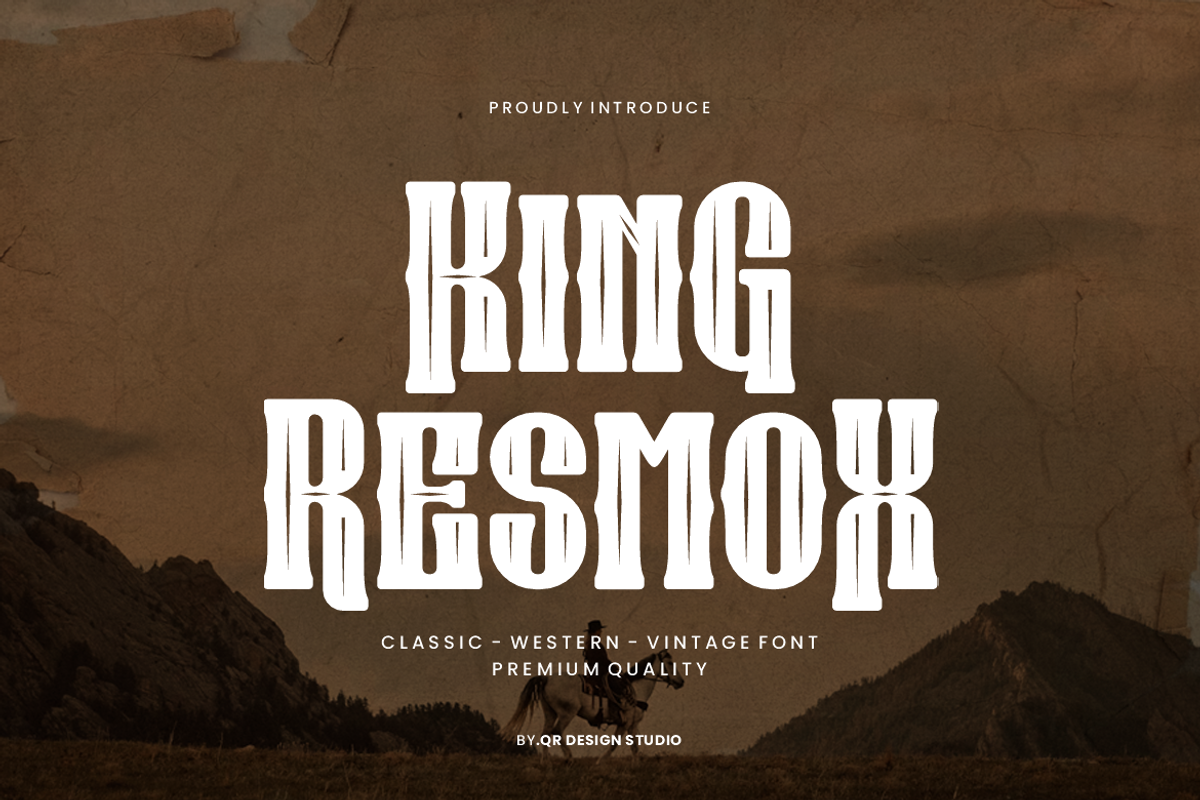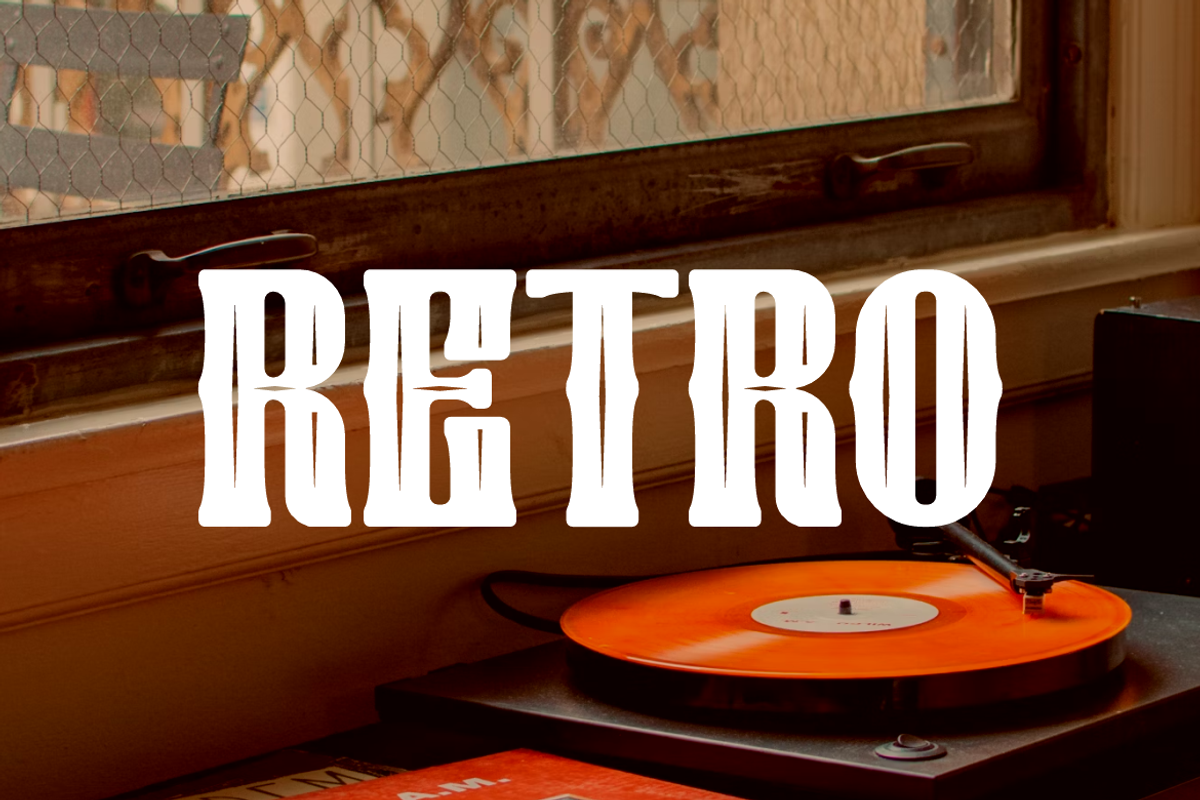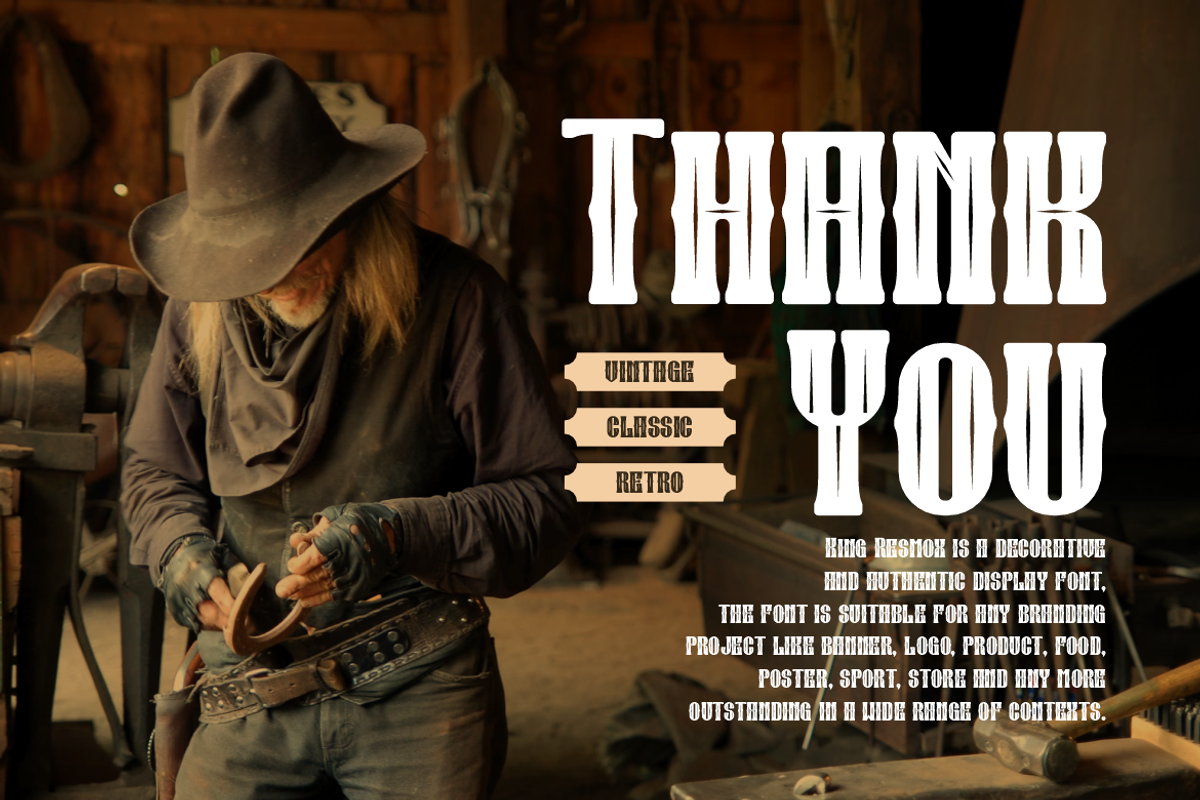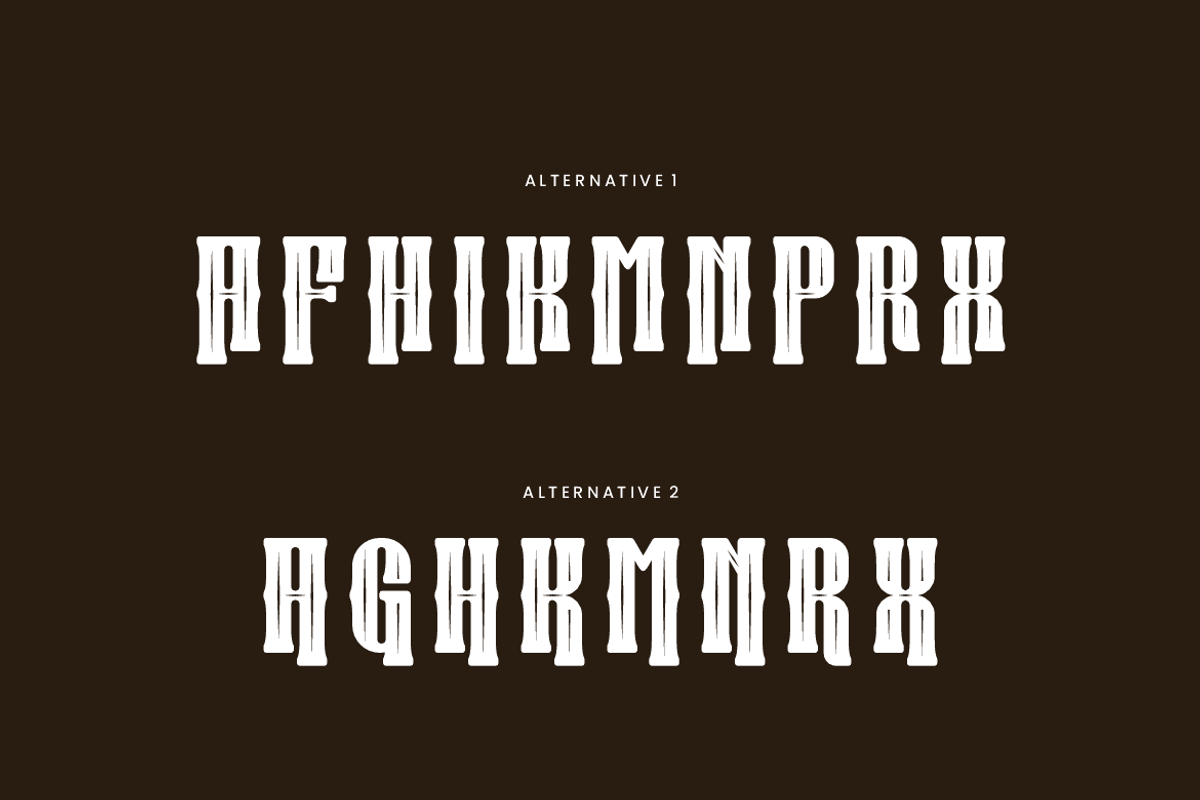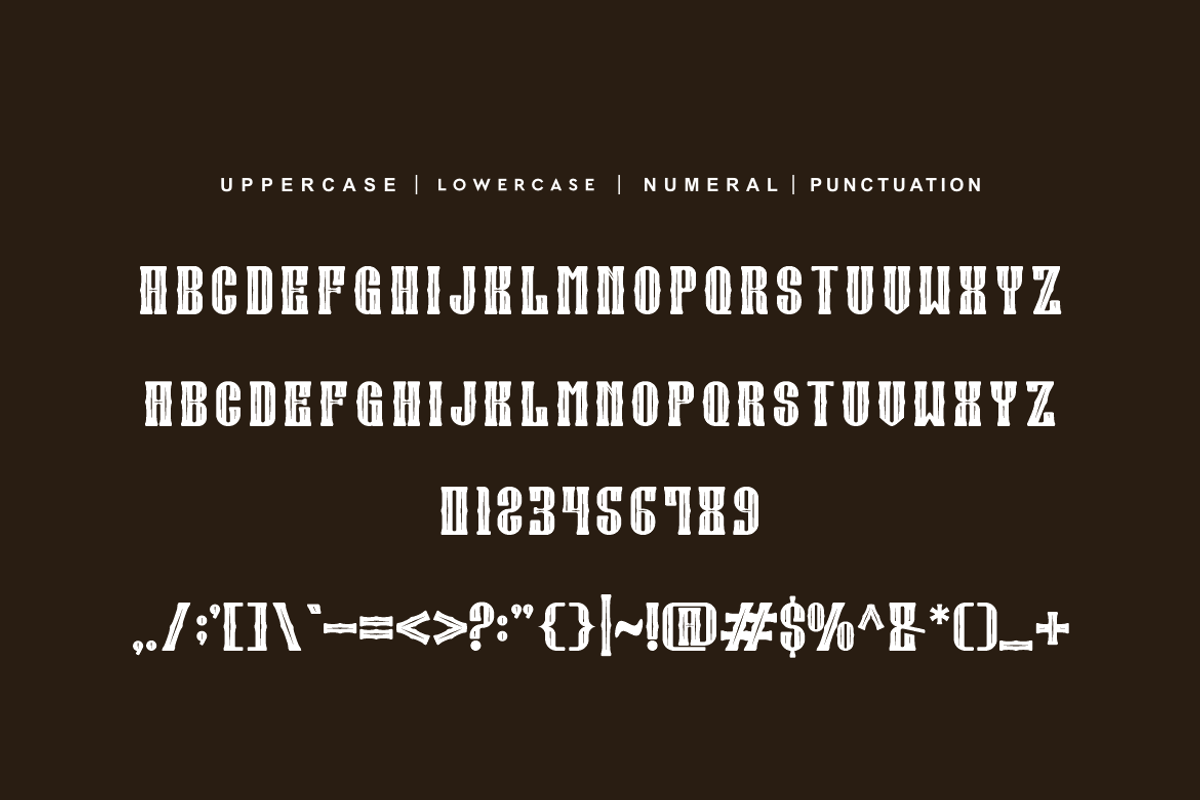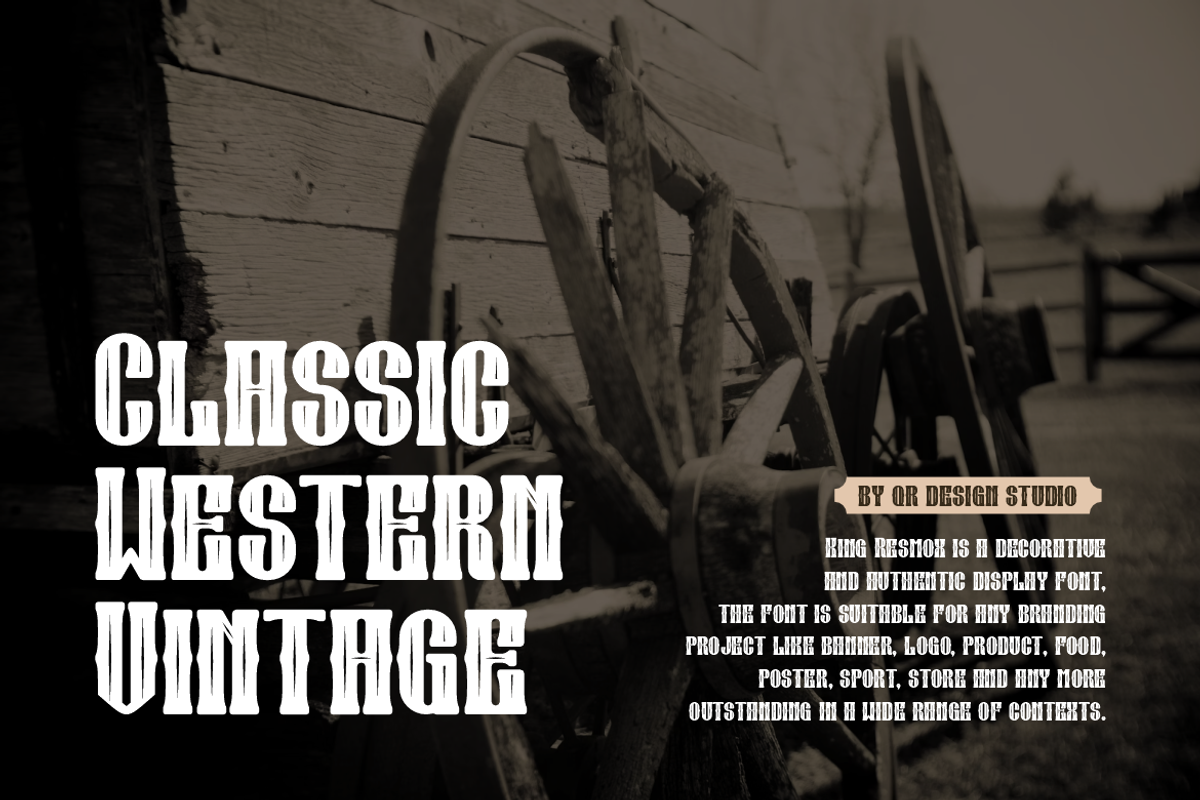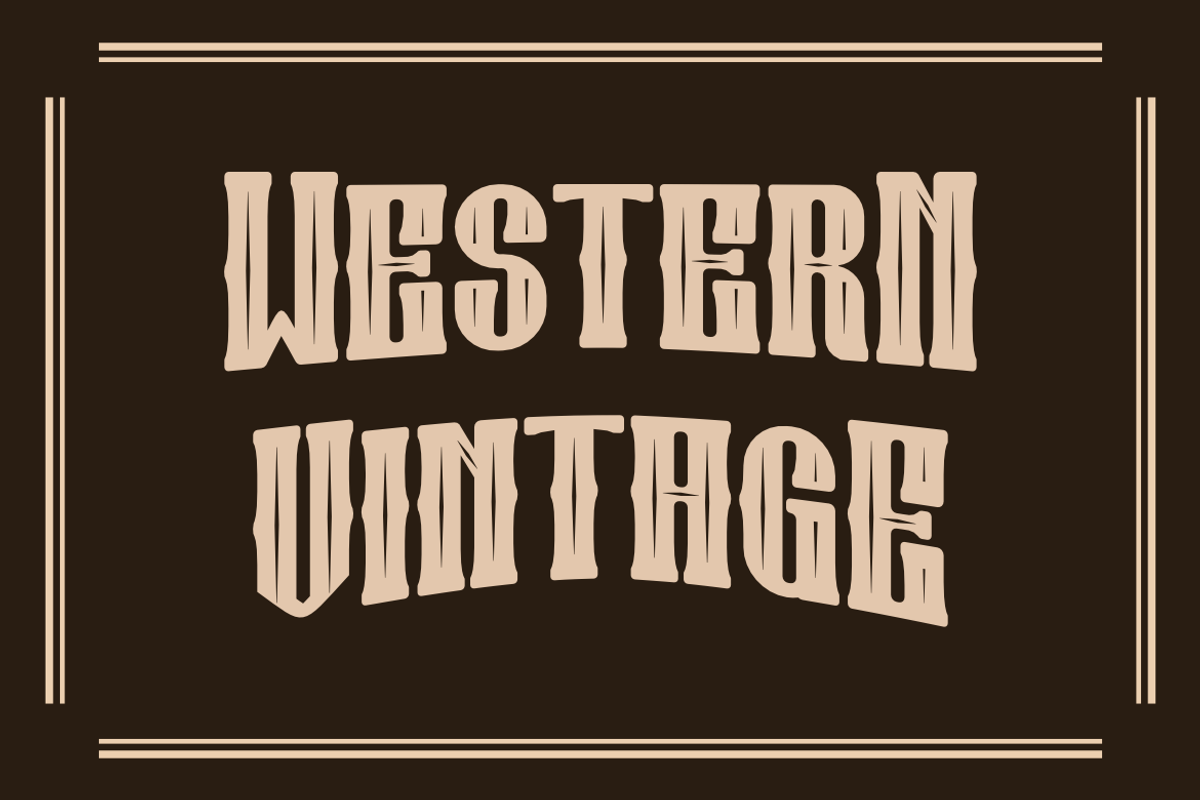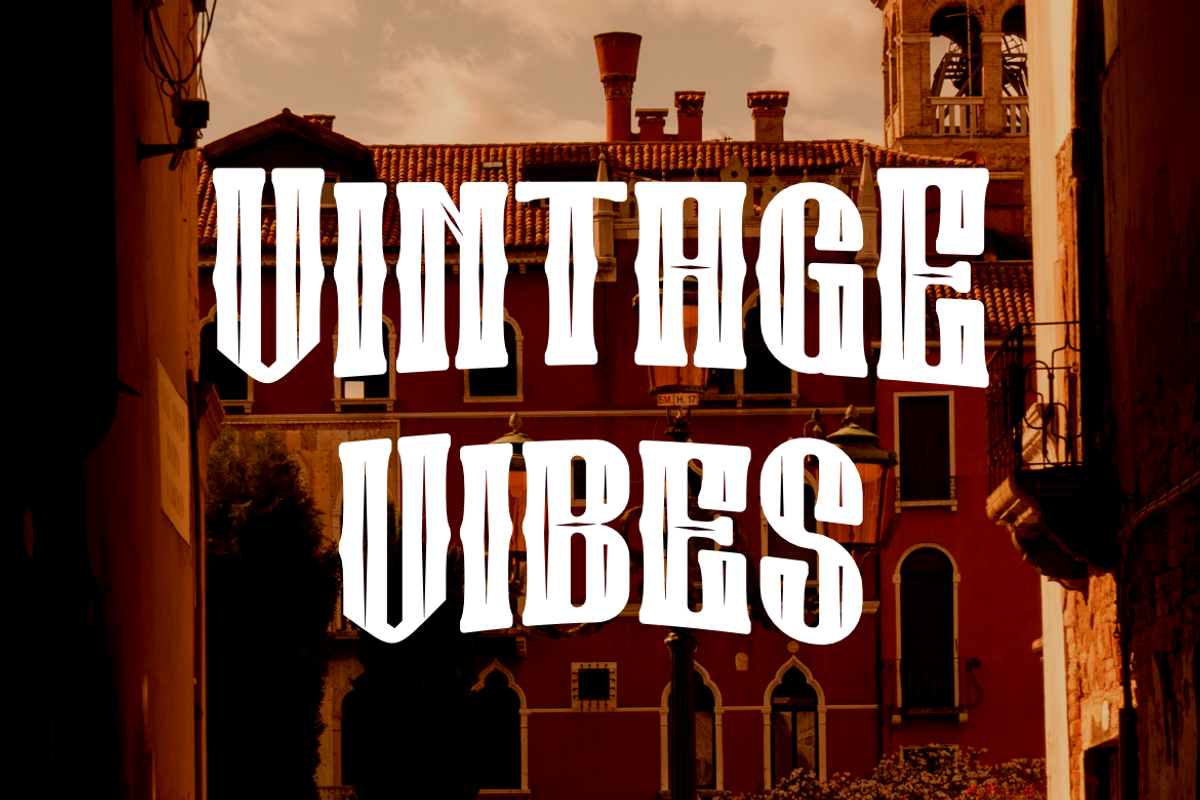
King Resmox - Western & Vintage Font
King Resmox - Western & Vintage Font is a serif and authentic display font. The font is suitable for any branding project like poster, logo, sport, and many more. Outstanding in a wide range of contexts.